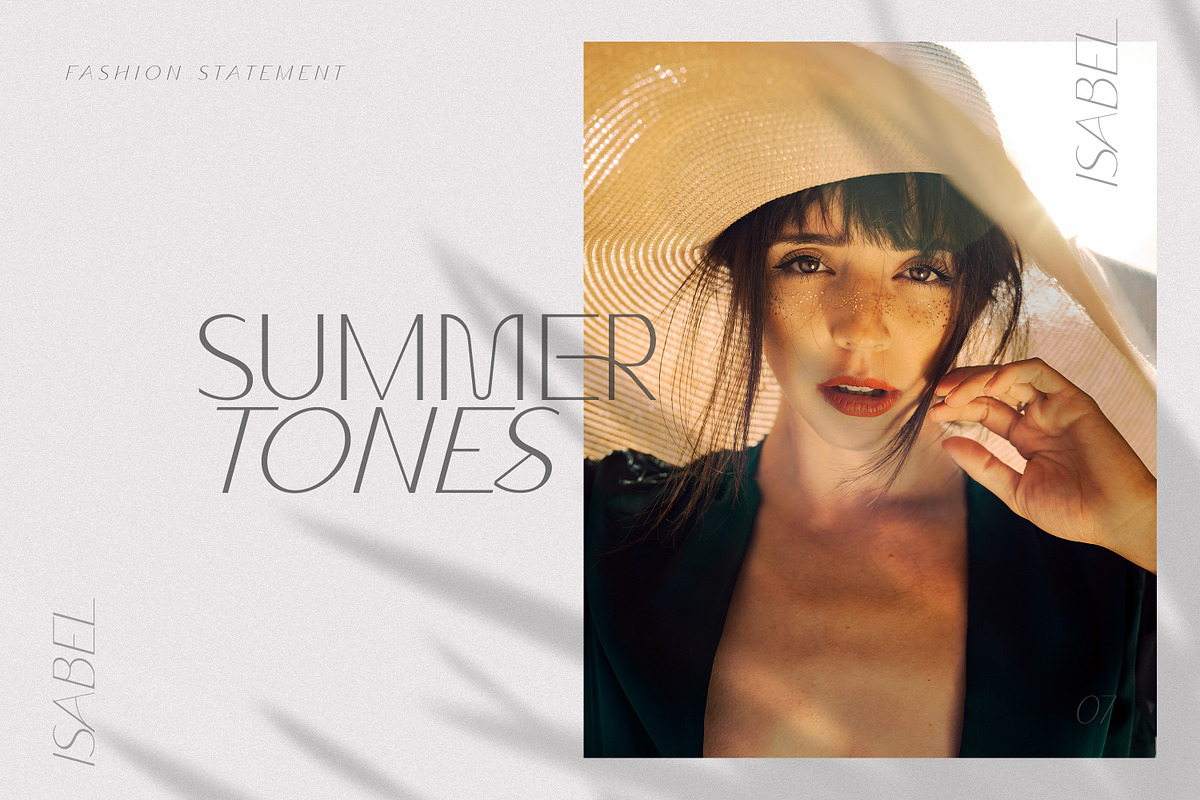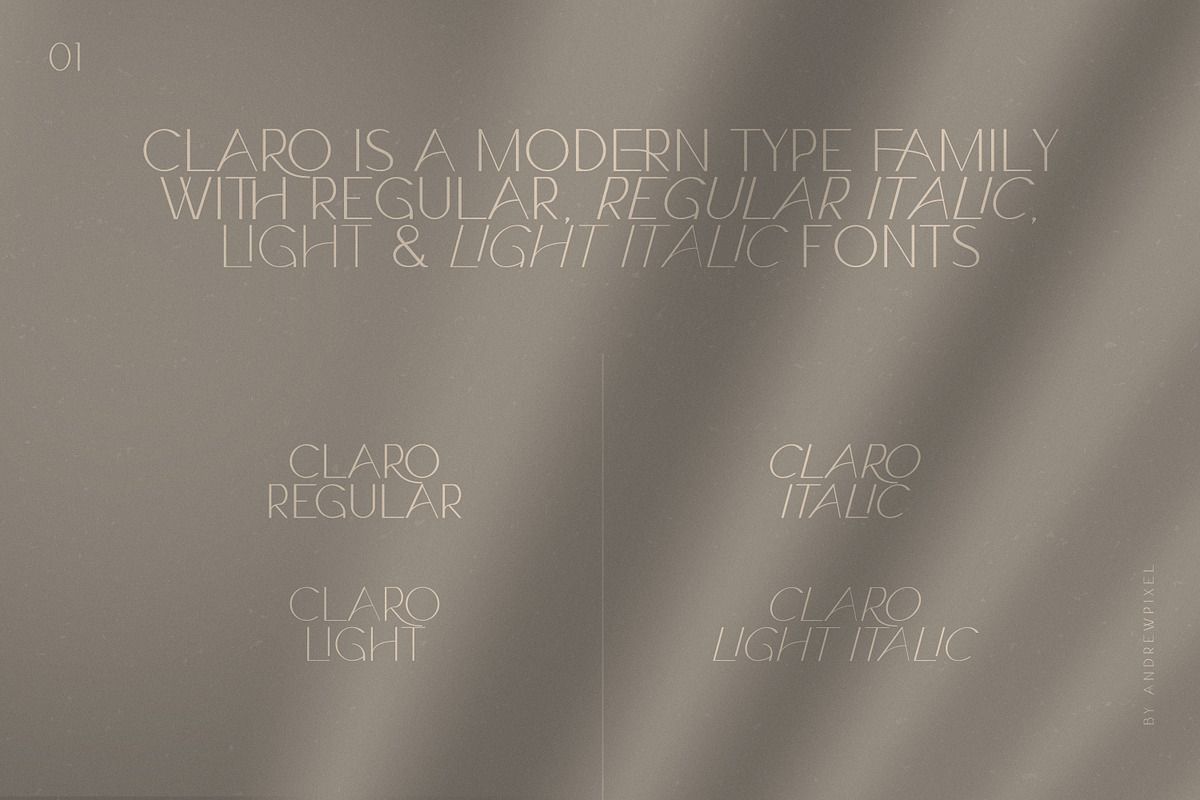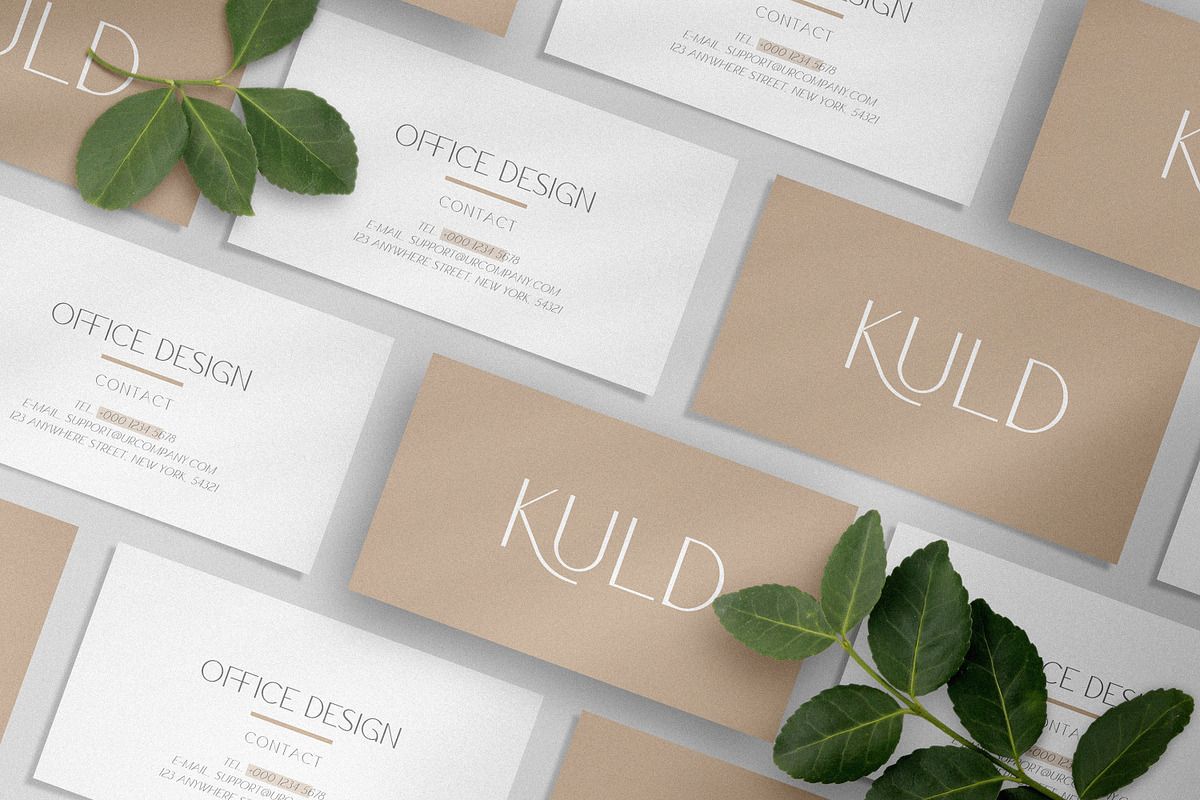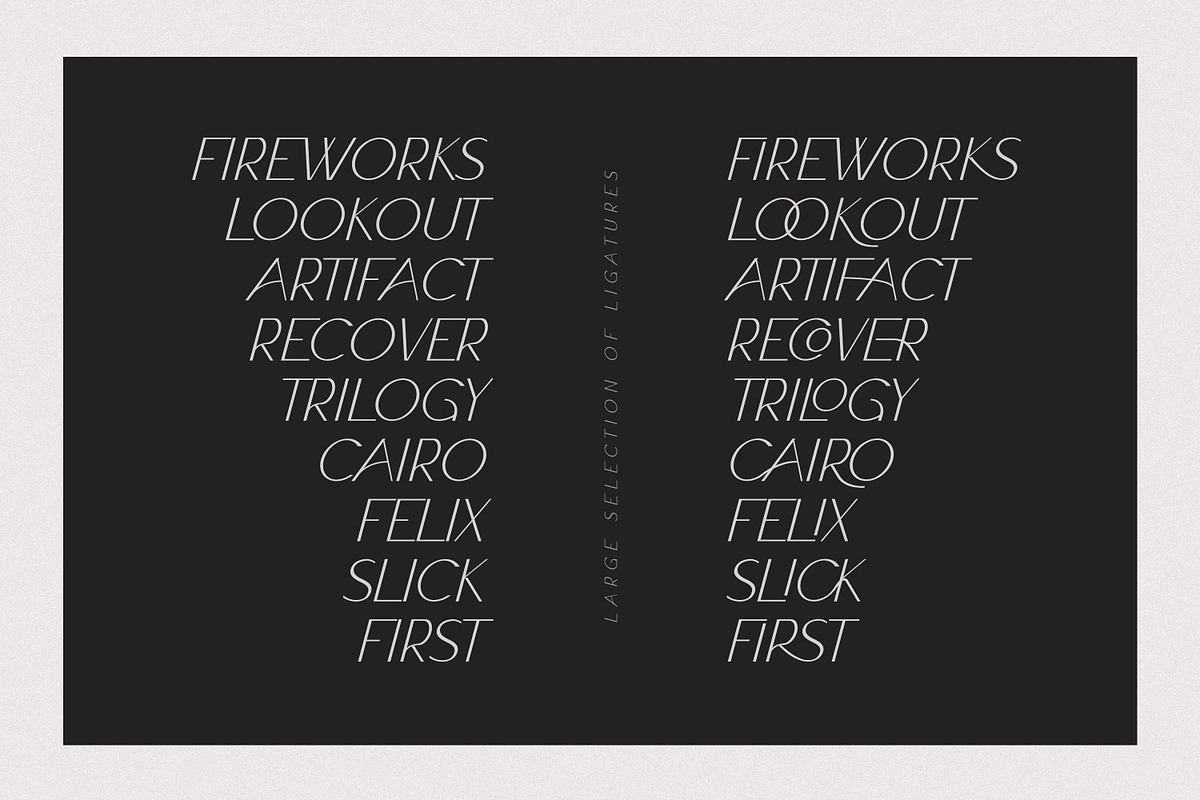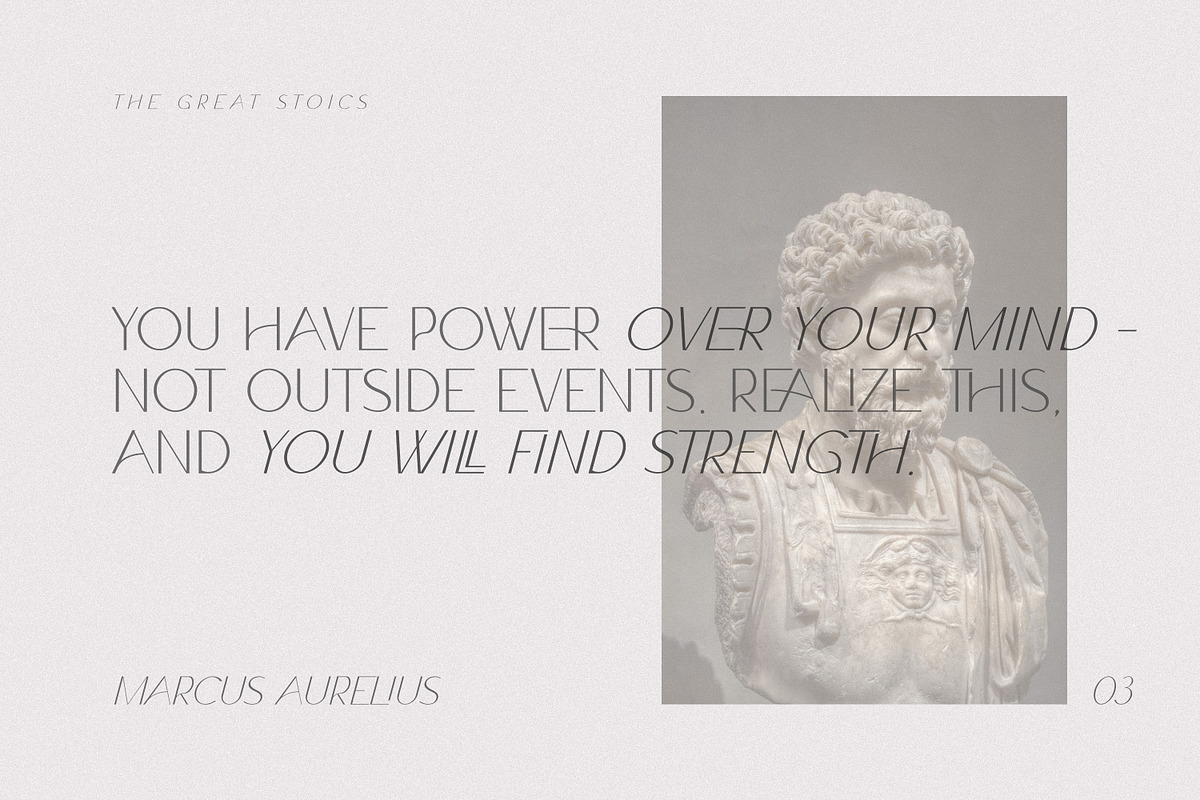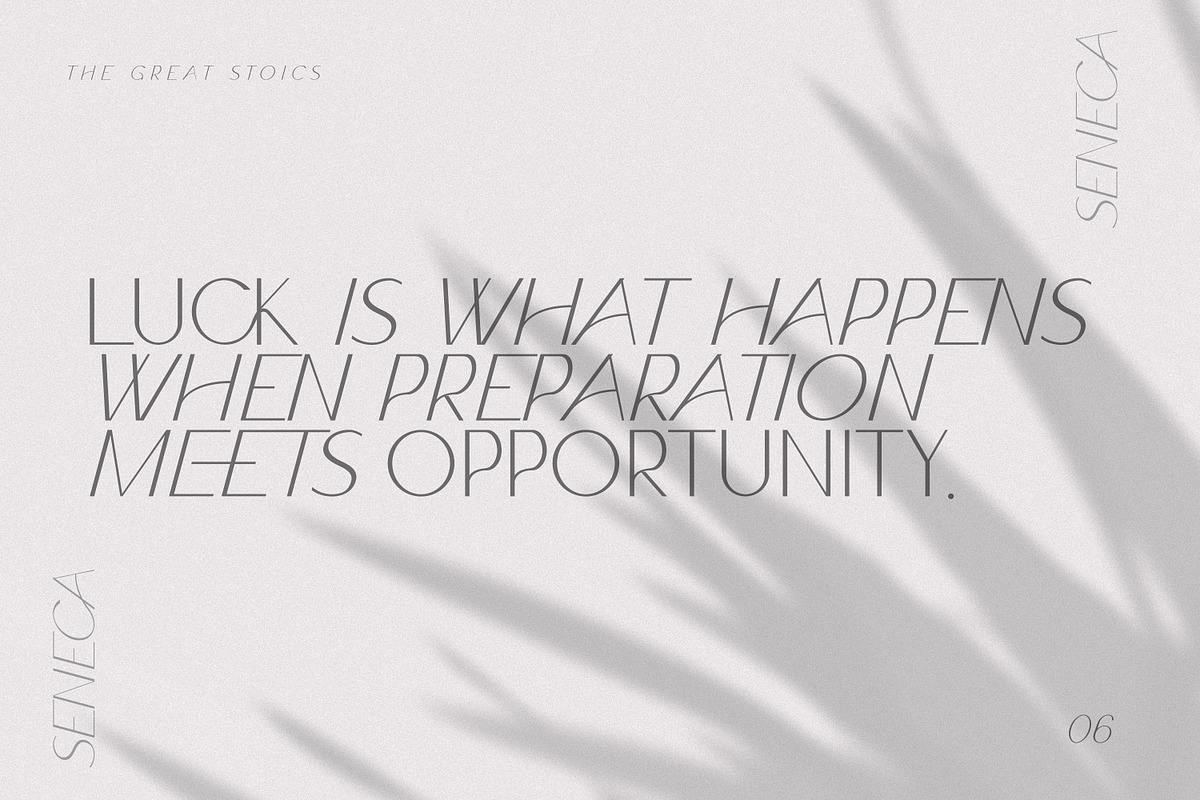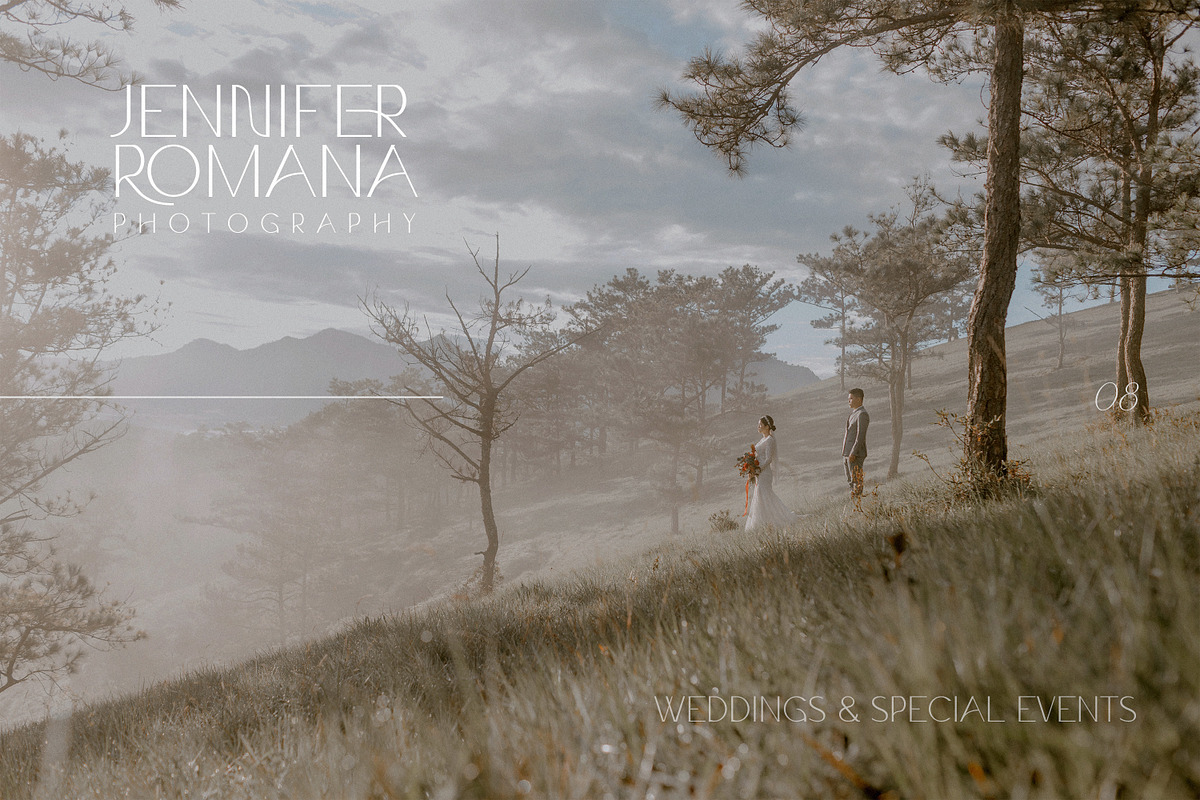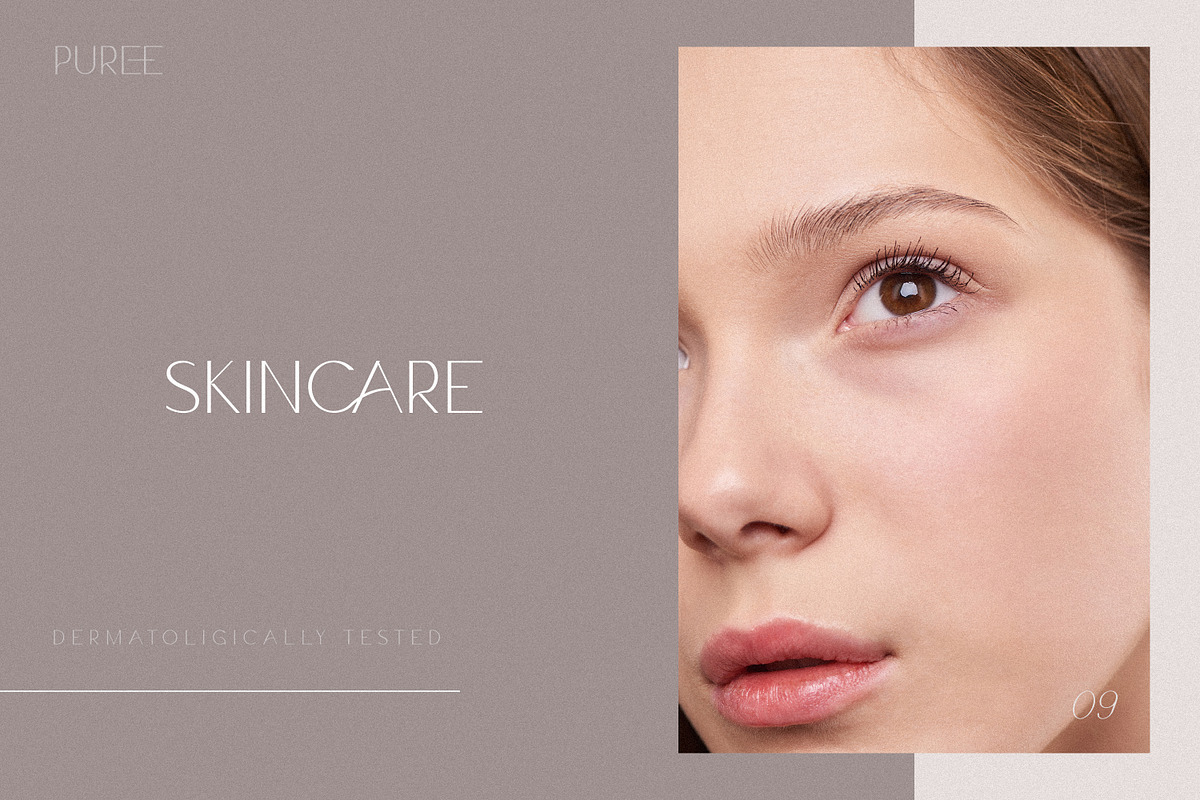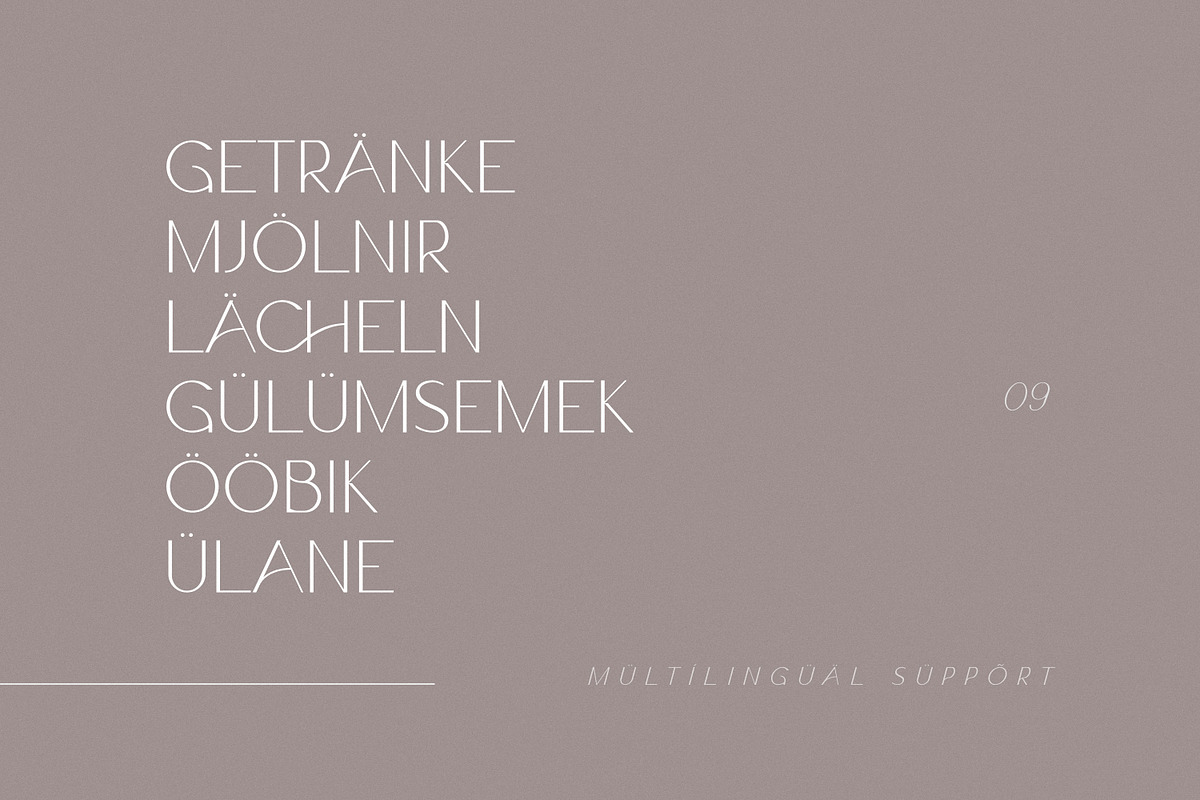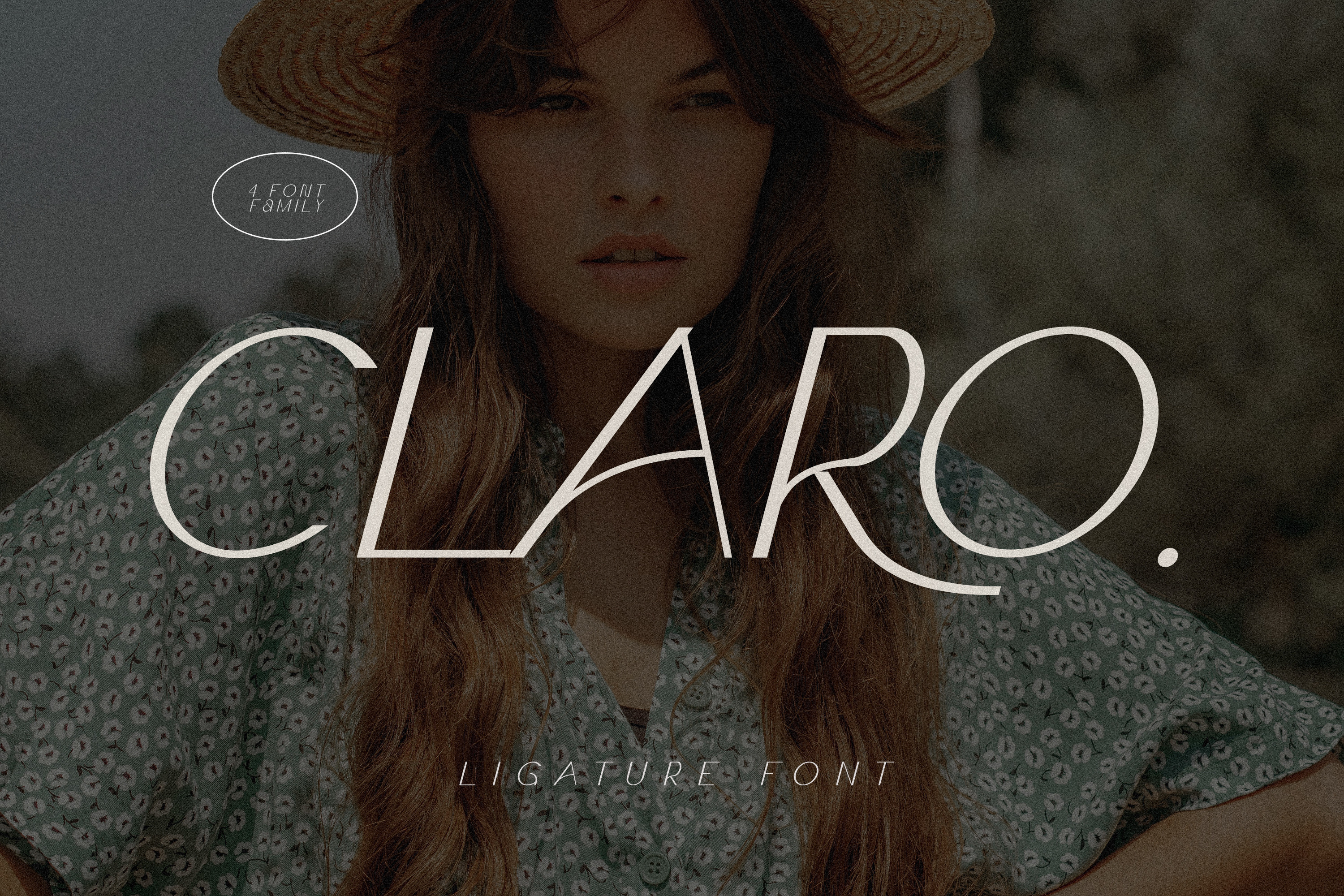
Claro - Elegant Font Family
Claro is a 4 font modern sans serif family with clean minimal lines and lots of ligatures and alternates. It consists of Claro Regular, Claro Italic, Claro Light & Claro Light Italic.
Claro font family lets you create unique-looking logos, wedding invitations, holiday cards, ads, social media posts, quotes, and much more with ease. The wide selection of ligatures and alternates gives you endless possible combinations for chic typography lockups.
Calro font family includes:
- 4 Fonts
- Uppercase Letters
- Unique Alternates
- Special Characters
- Multilingual Glyphs